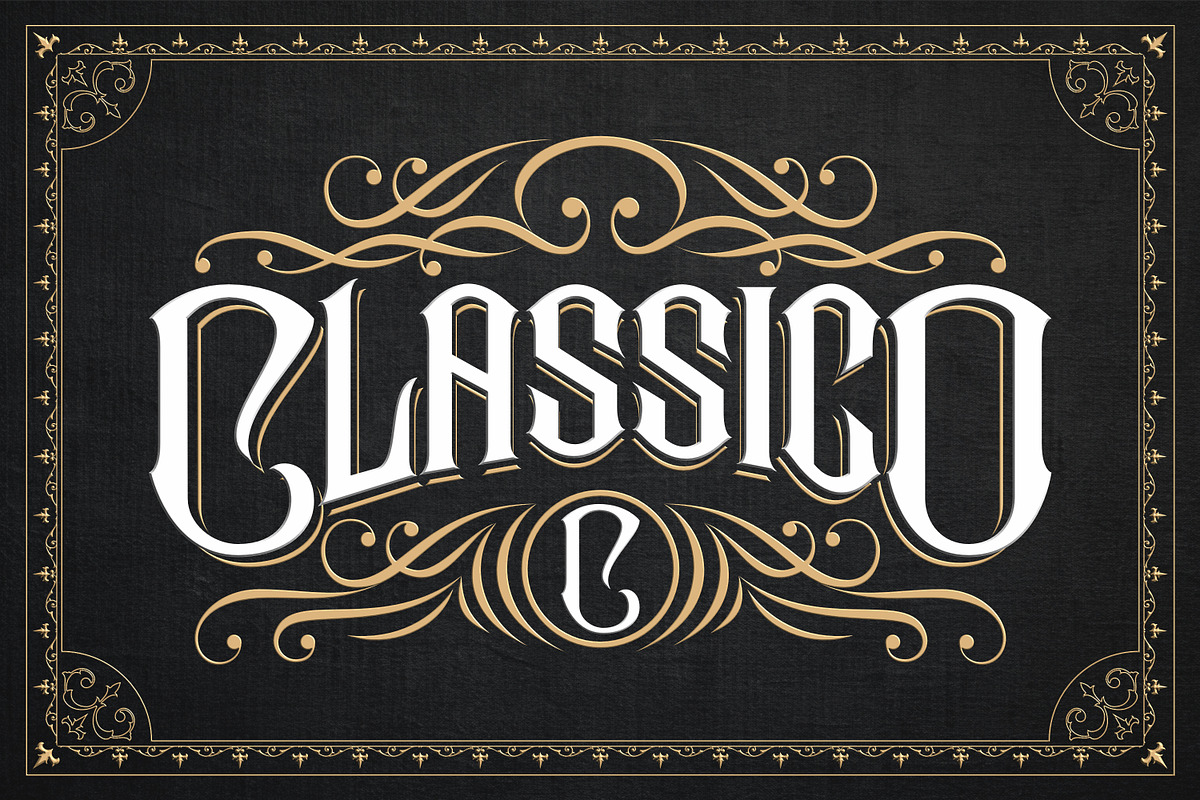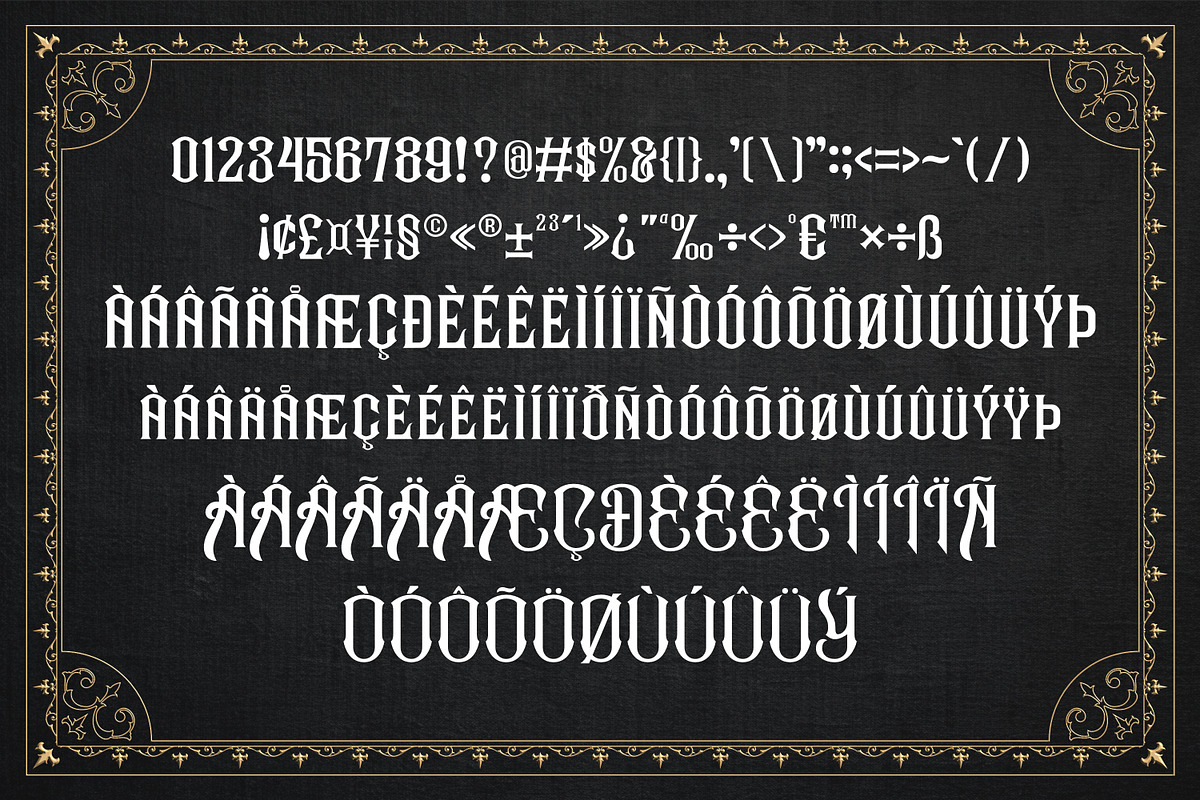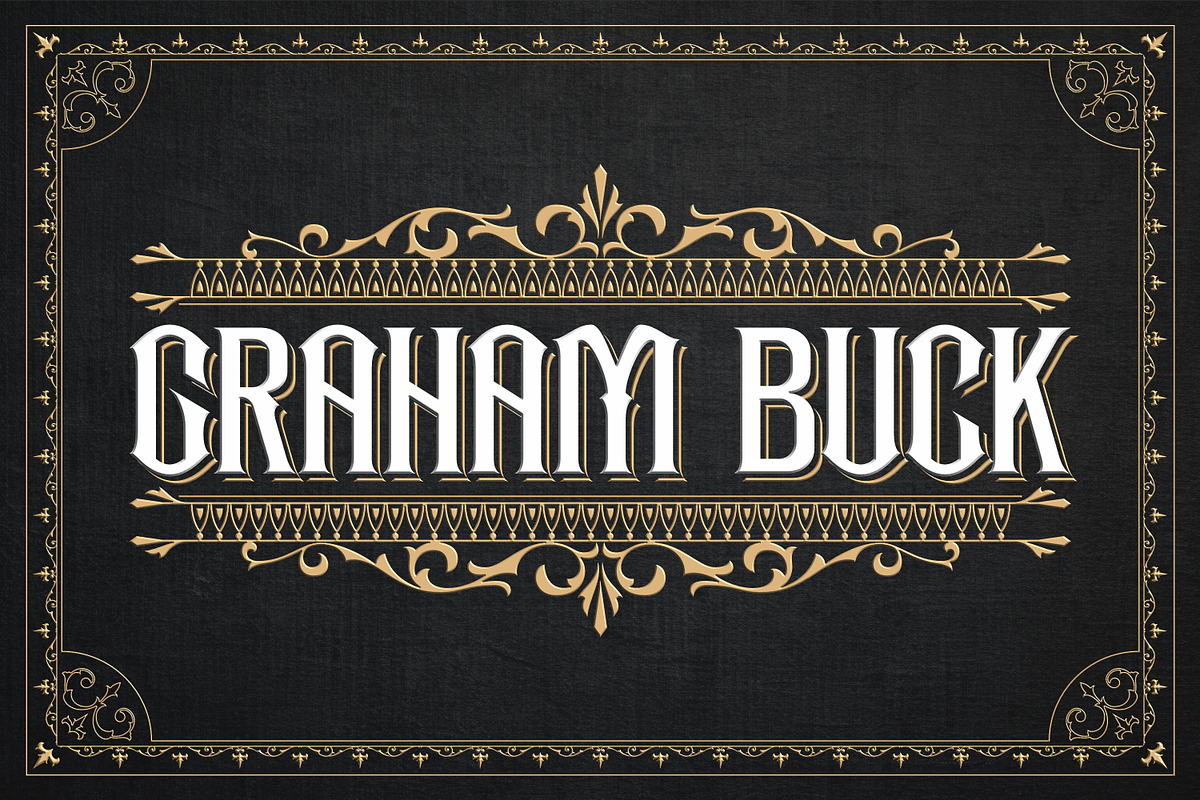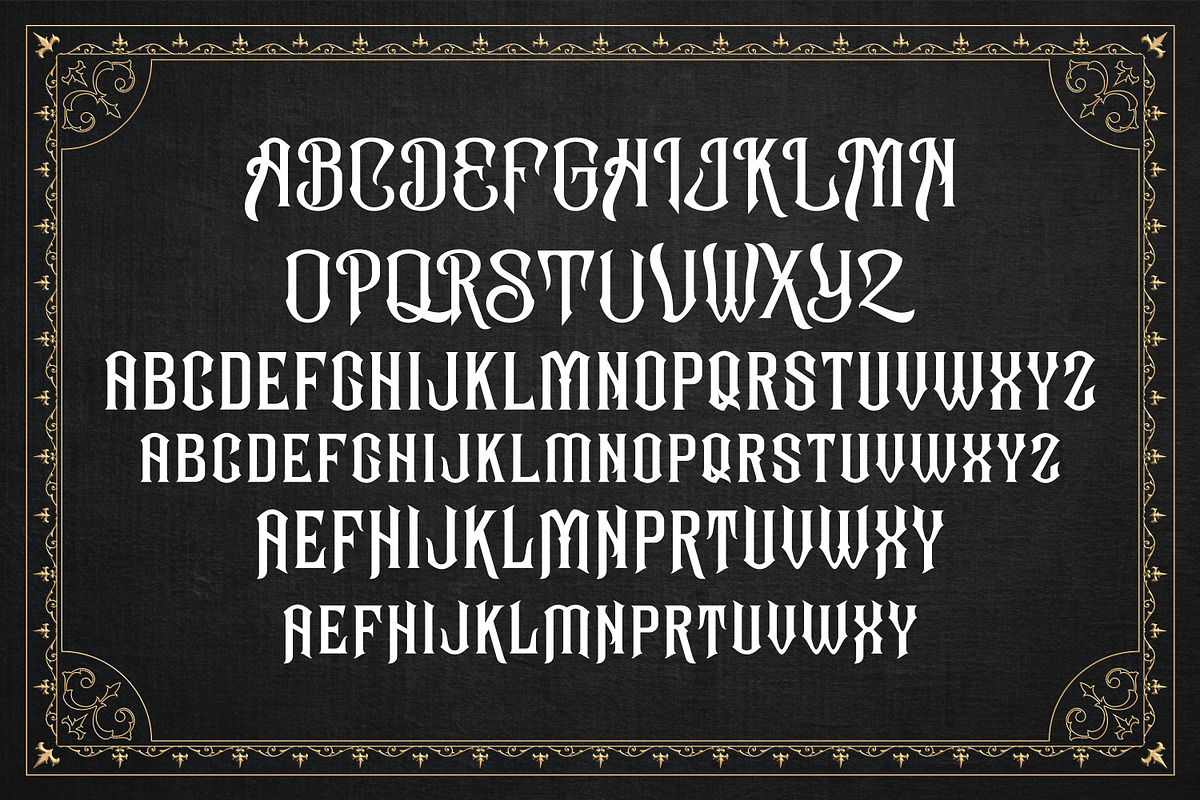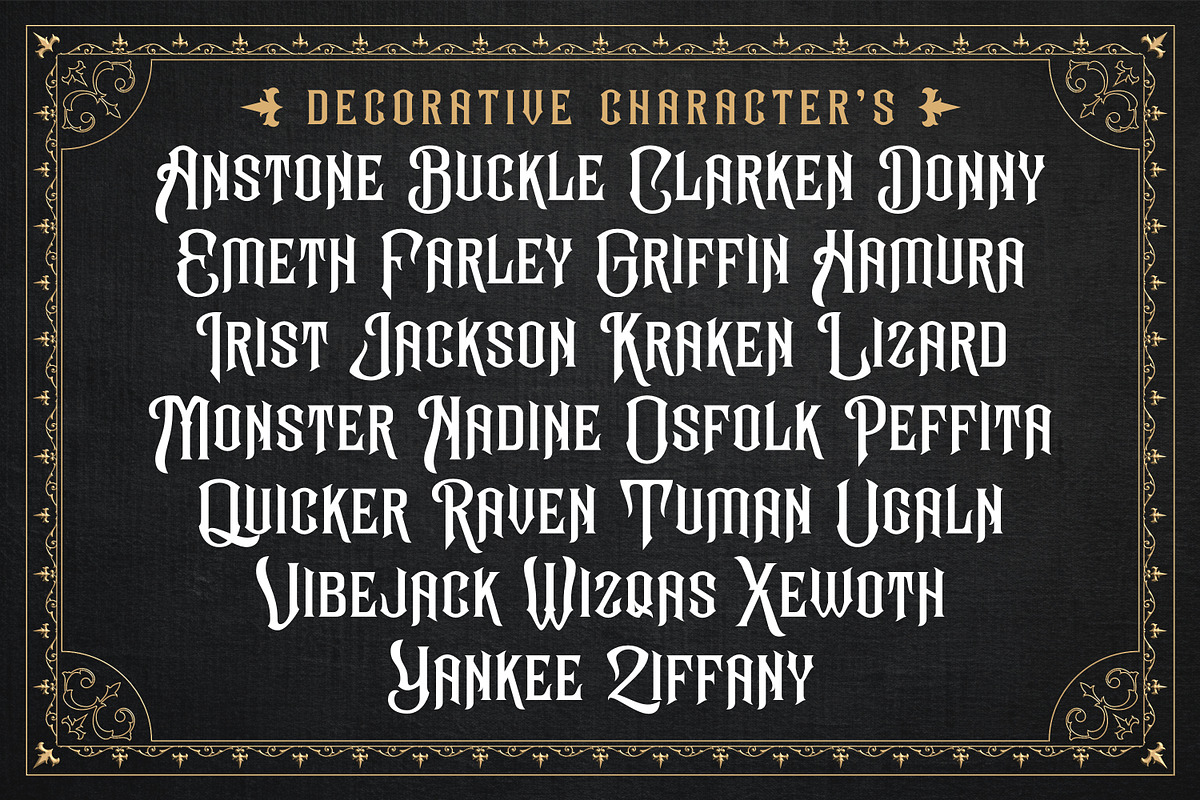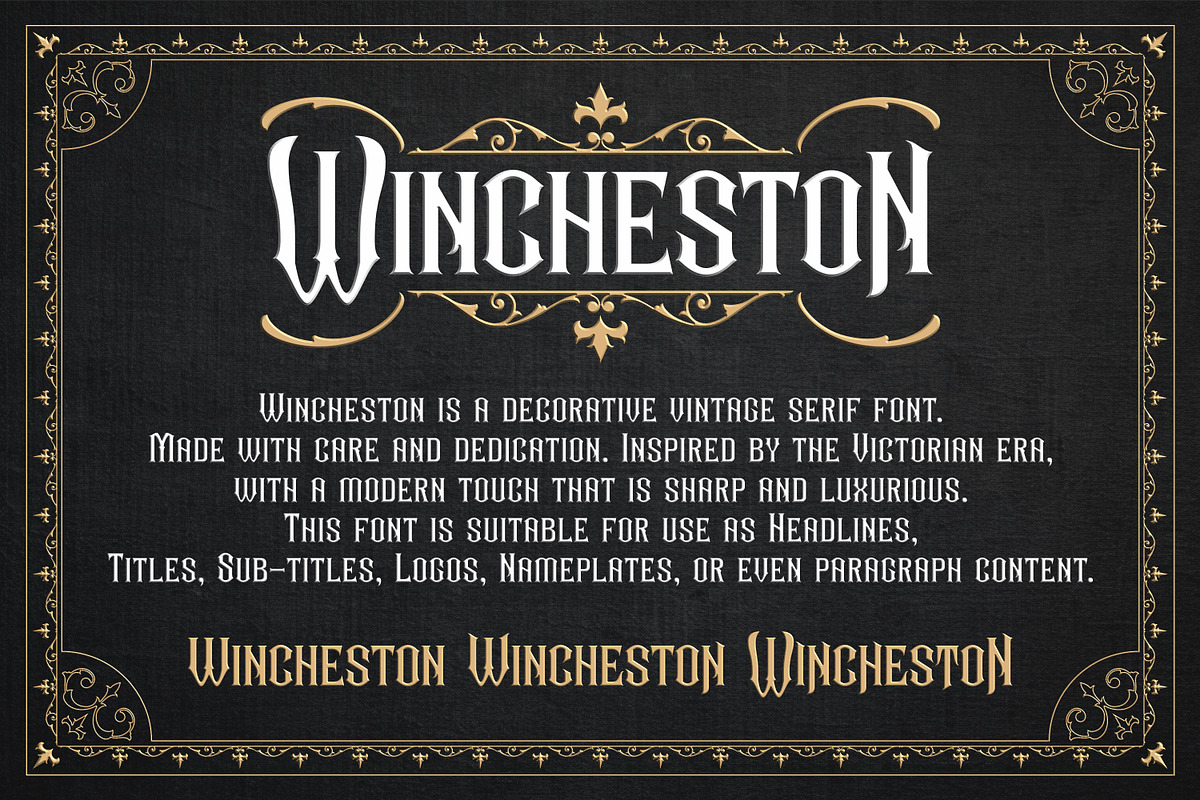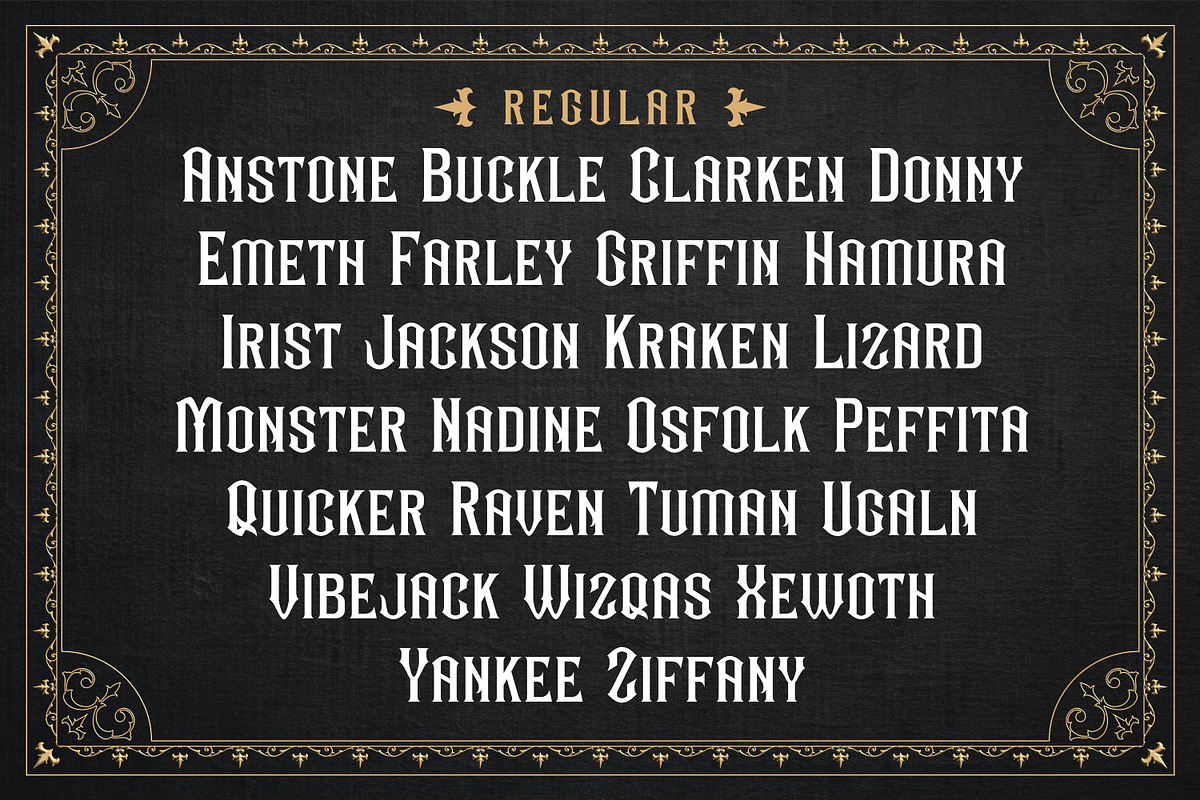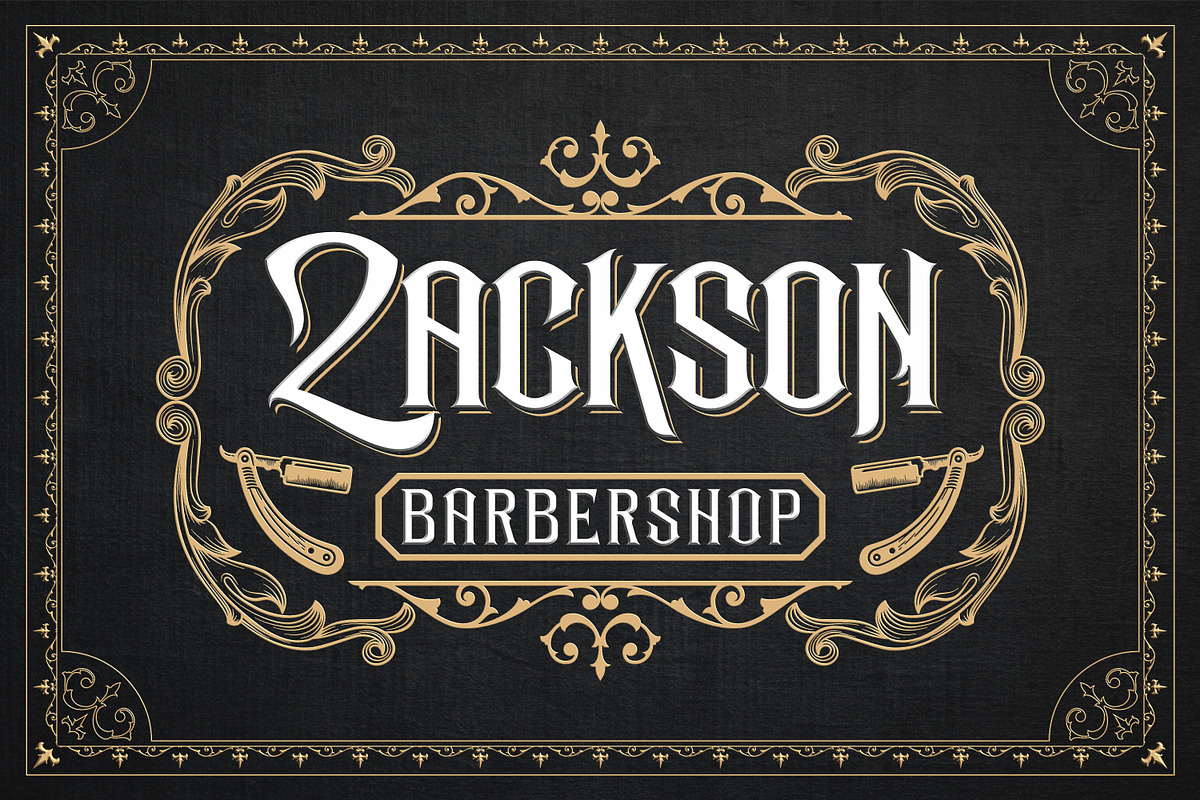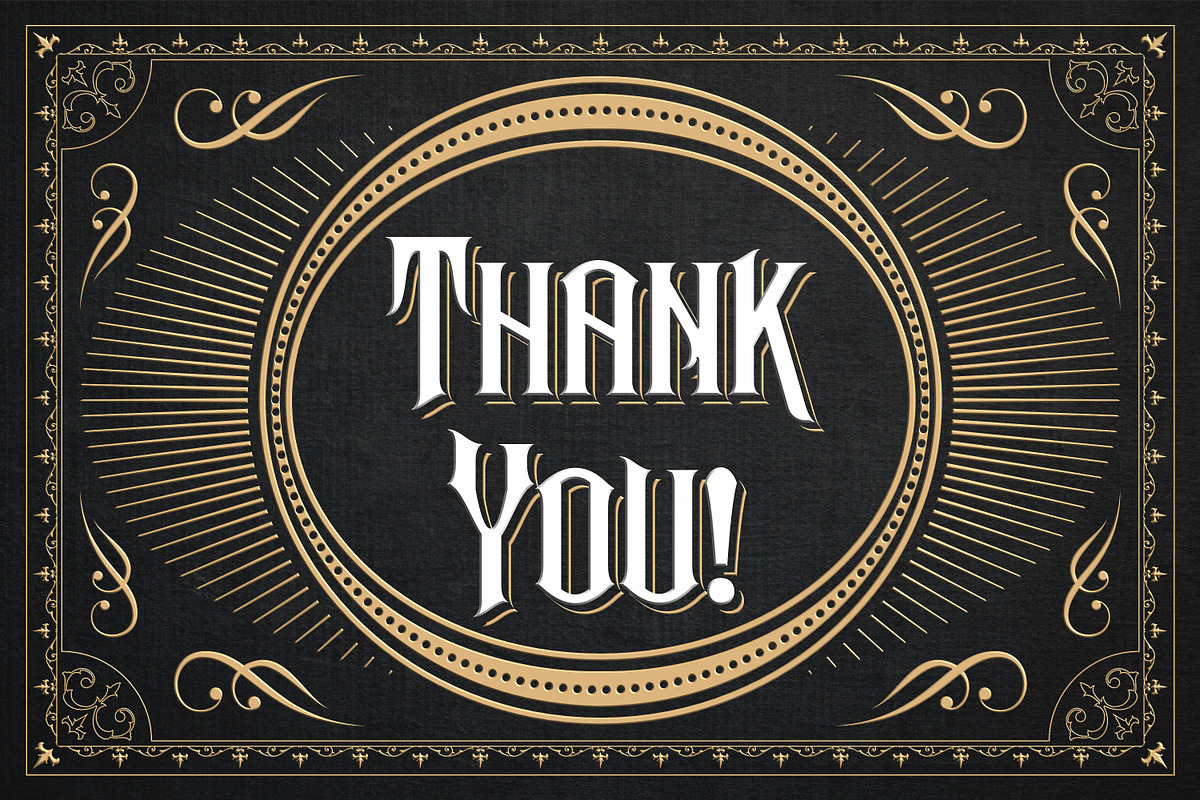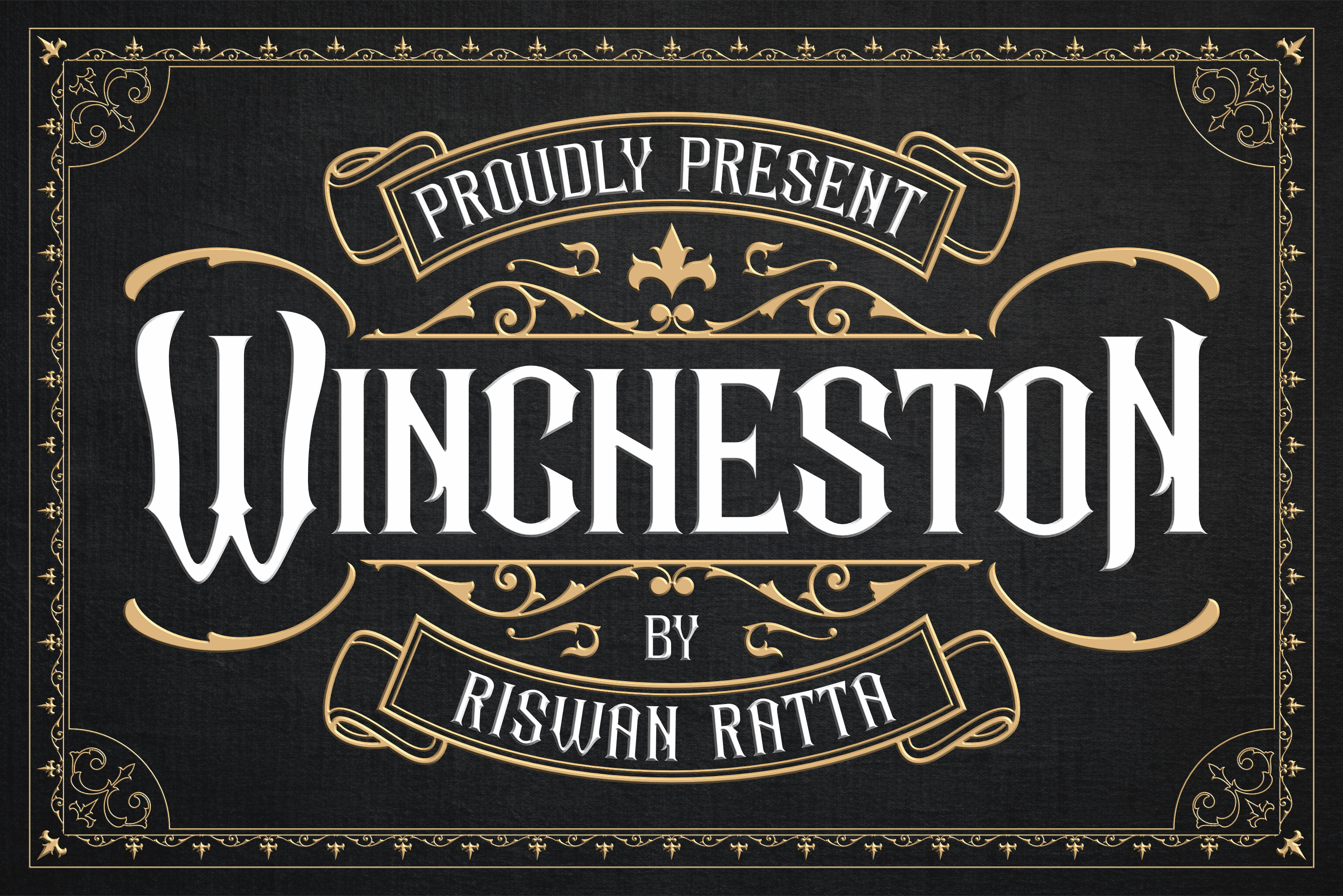
Wincheston Font
Wincheston is a decorative vintage serif font. Made with care and dedication. Inspired by the Victorian era, with a modern touch that is sharp and luxurious. This font is suitable for use as Headlines, Titles, Sub-titles, Logotypes, Nameplates, Labels, Signages, Posters, T-shirt Designs, Business Cards, Letterhead or even paragraph content.